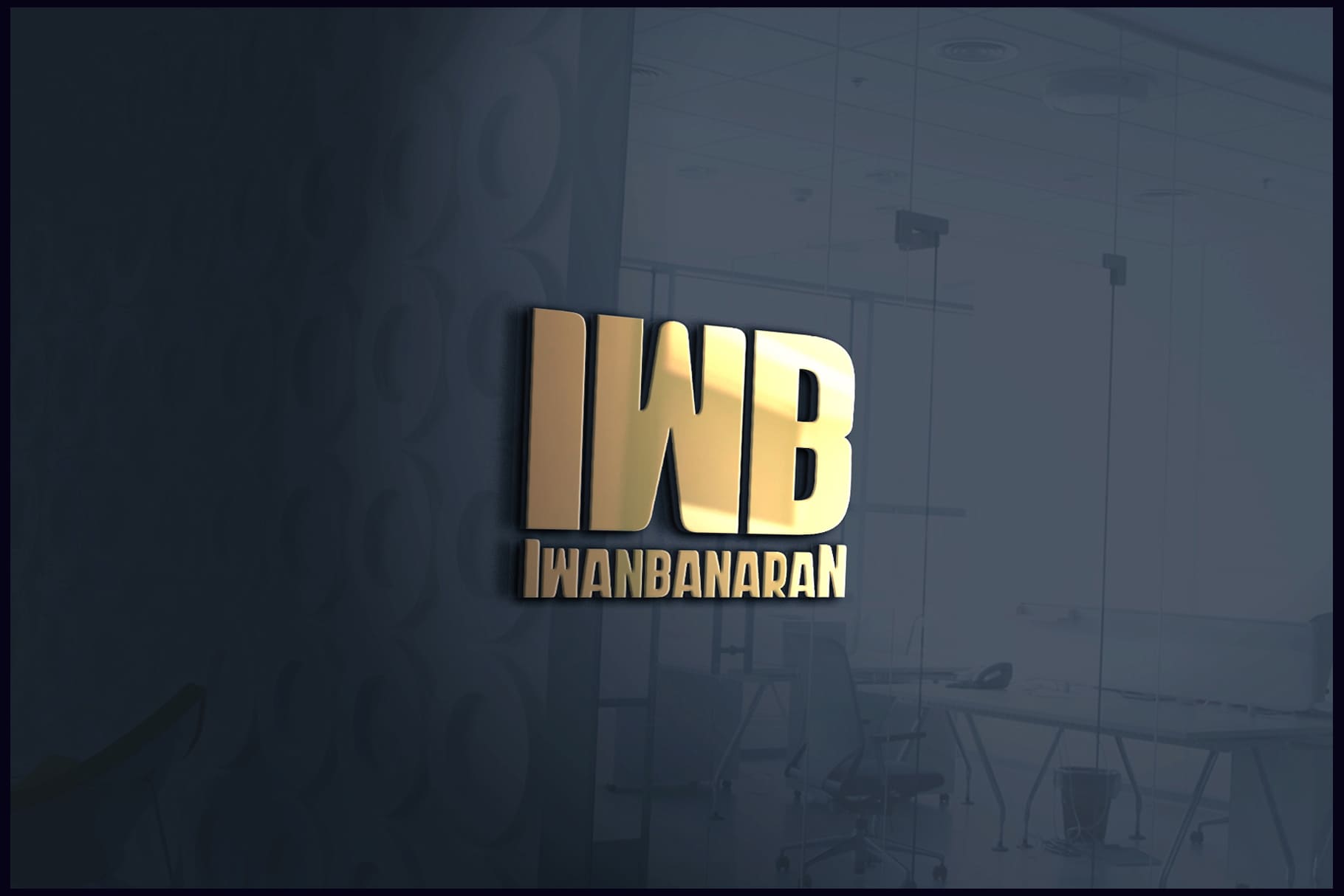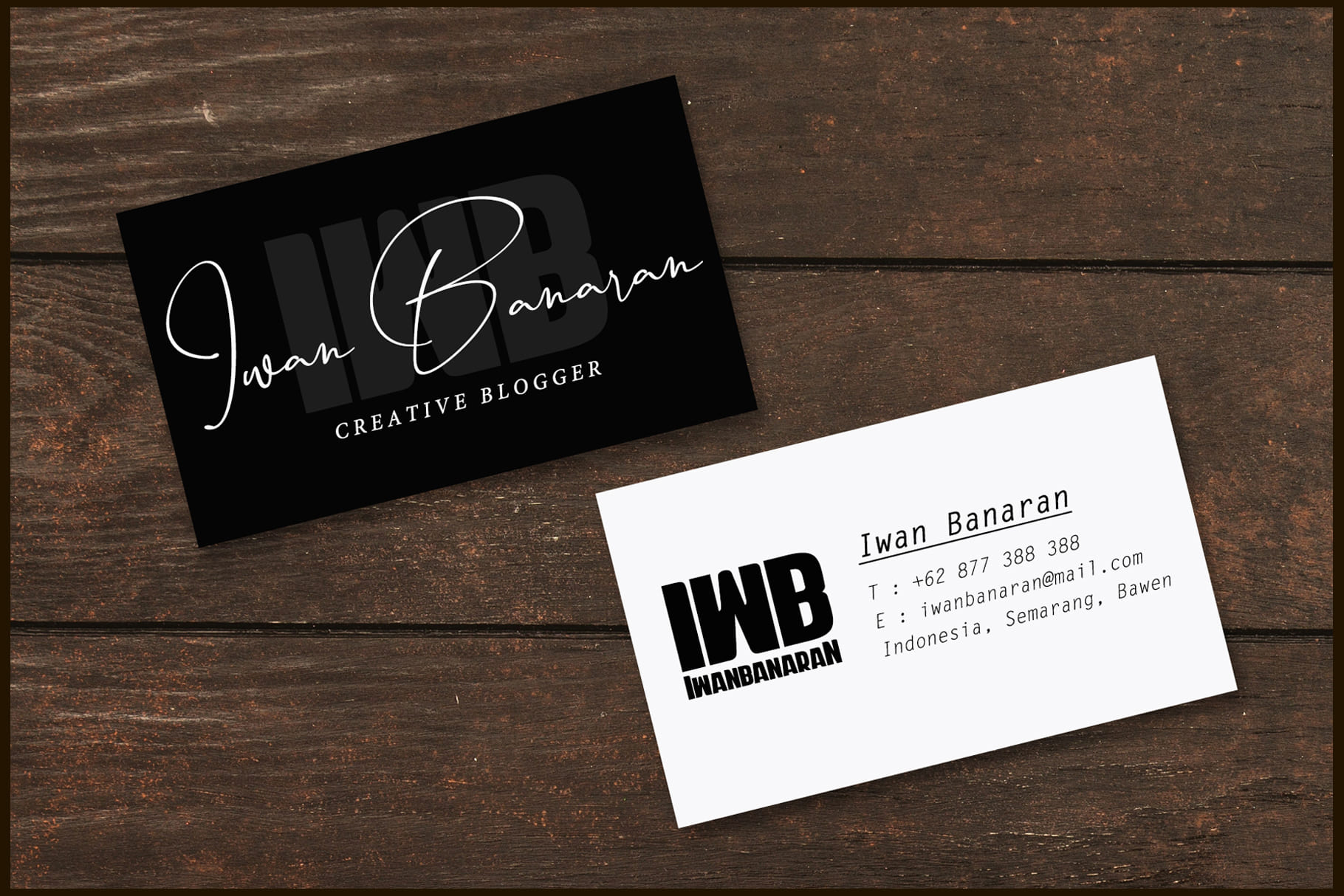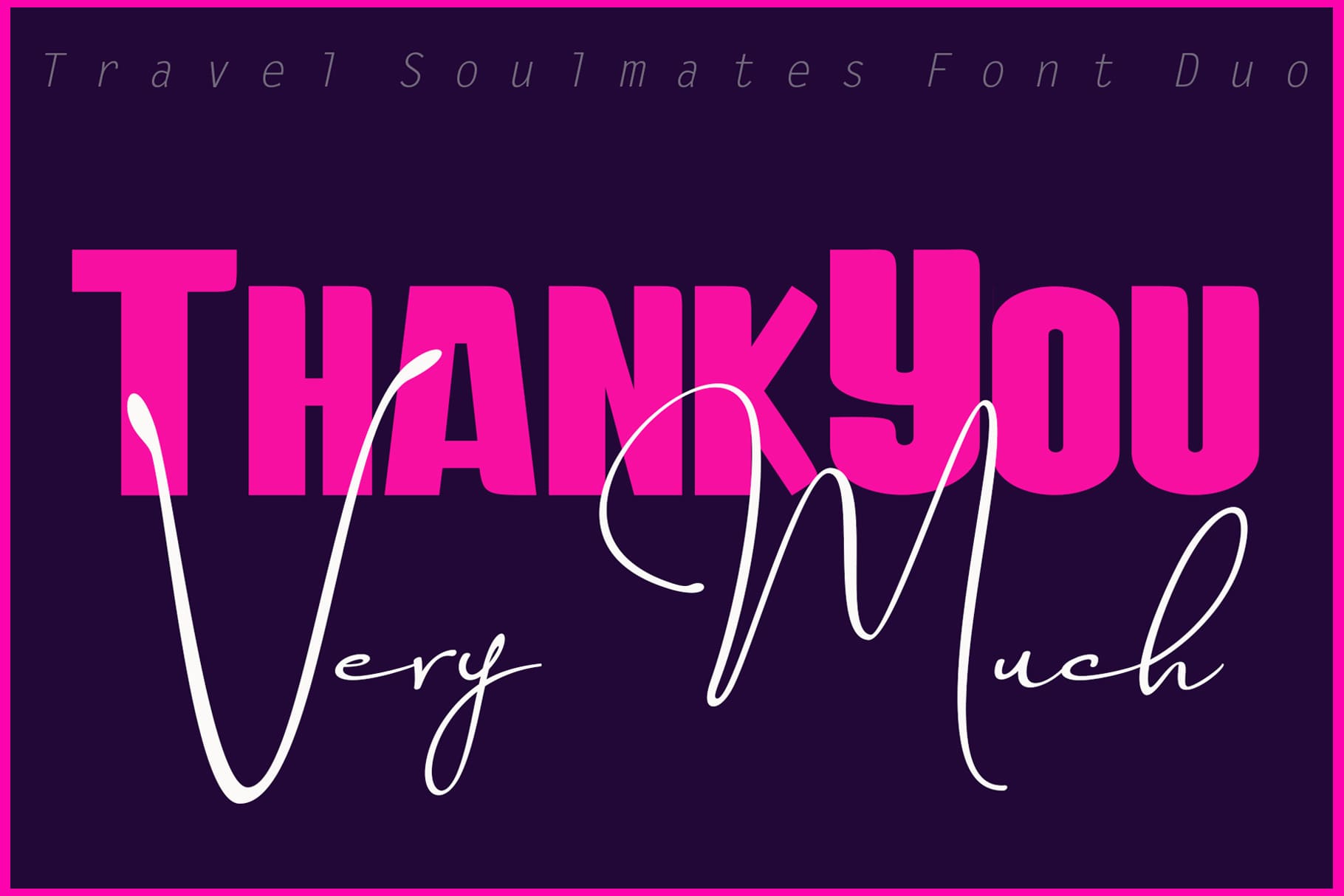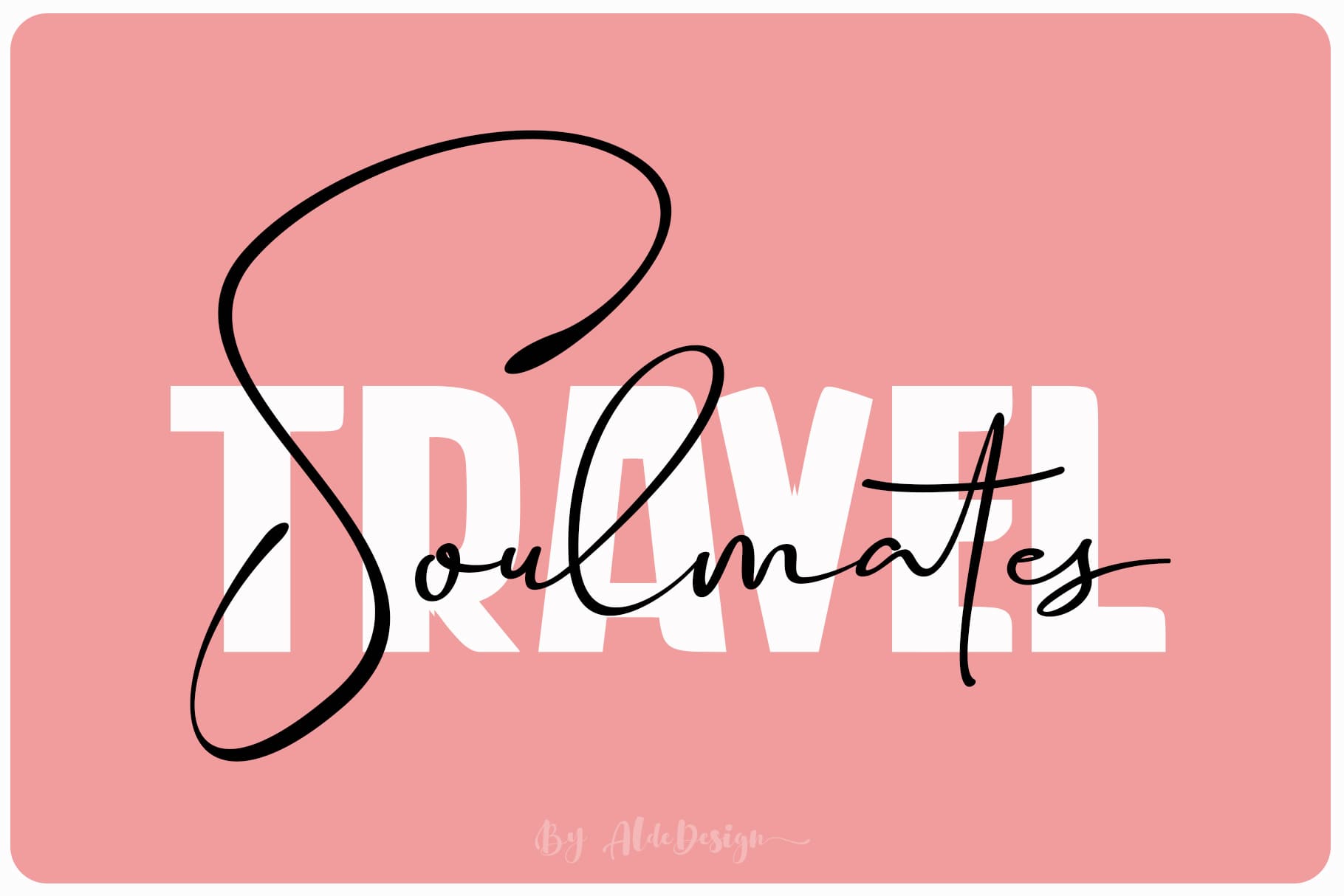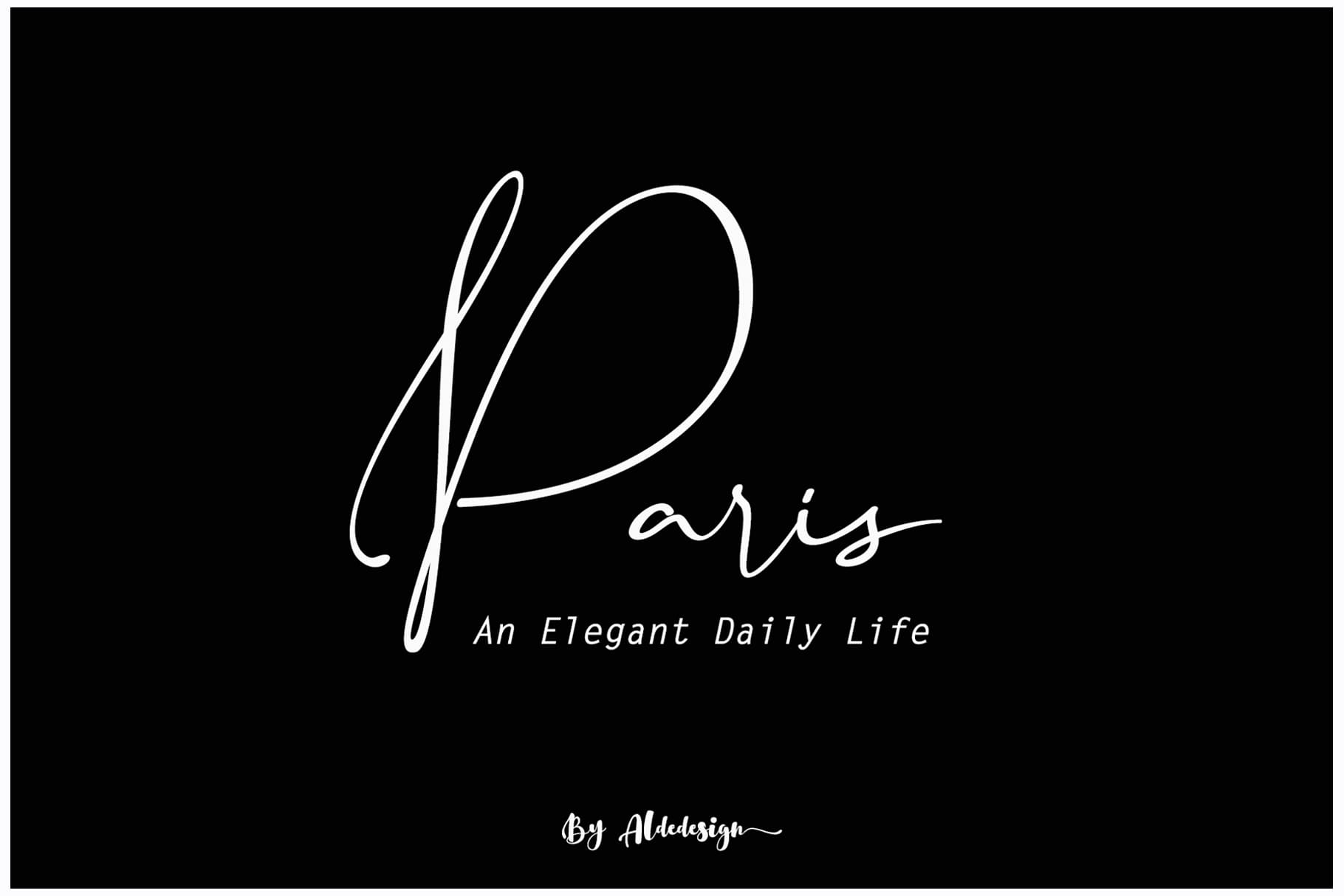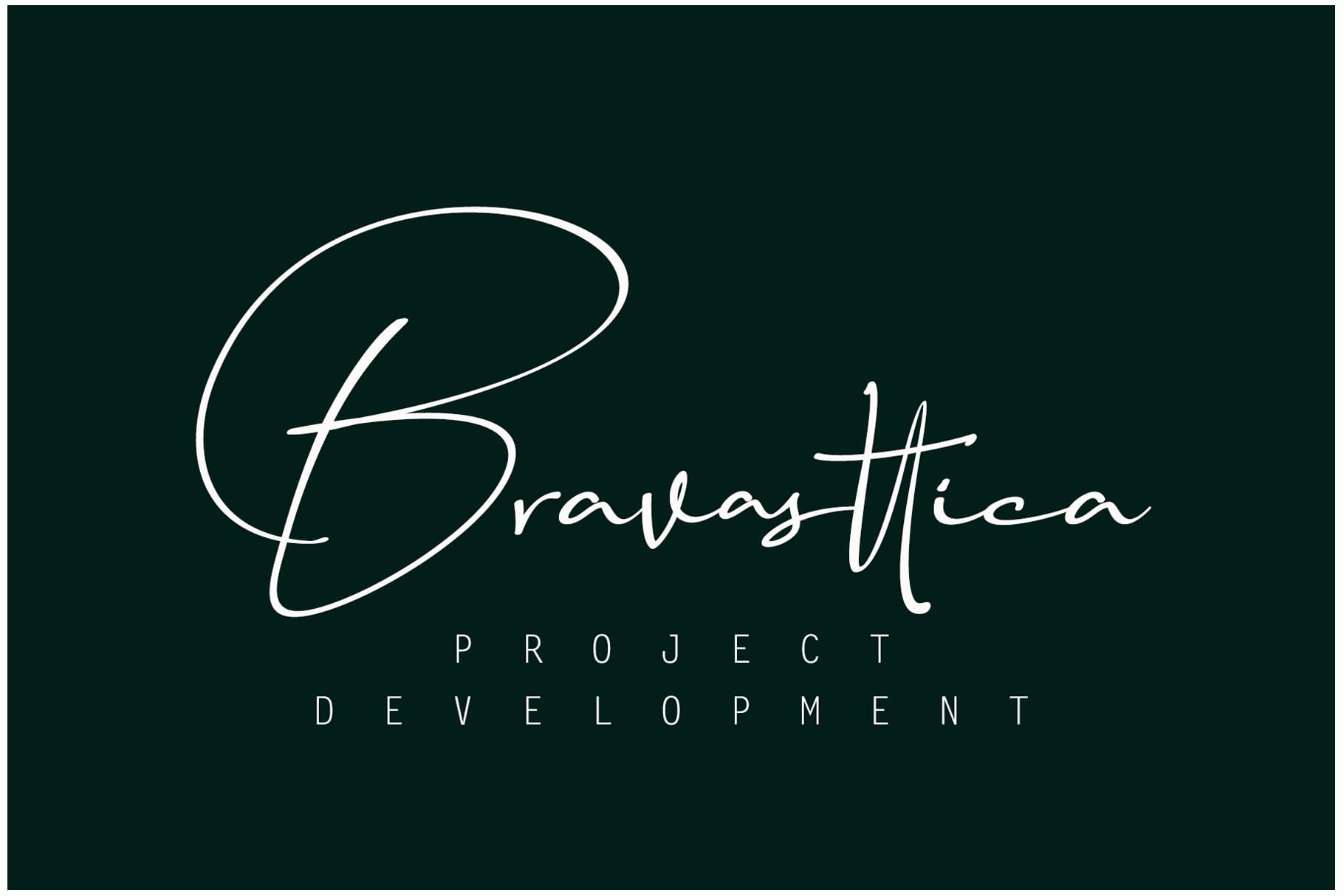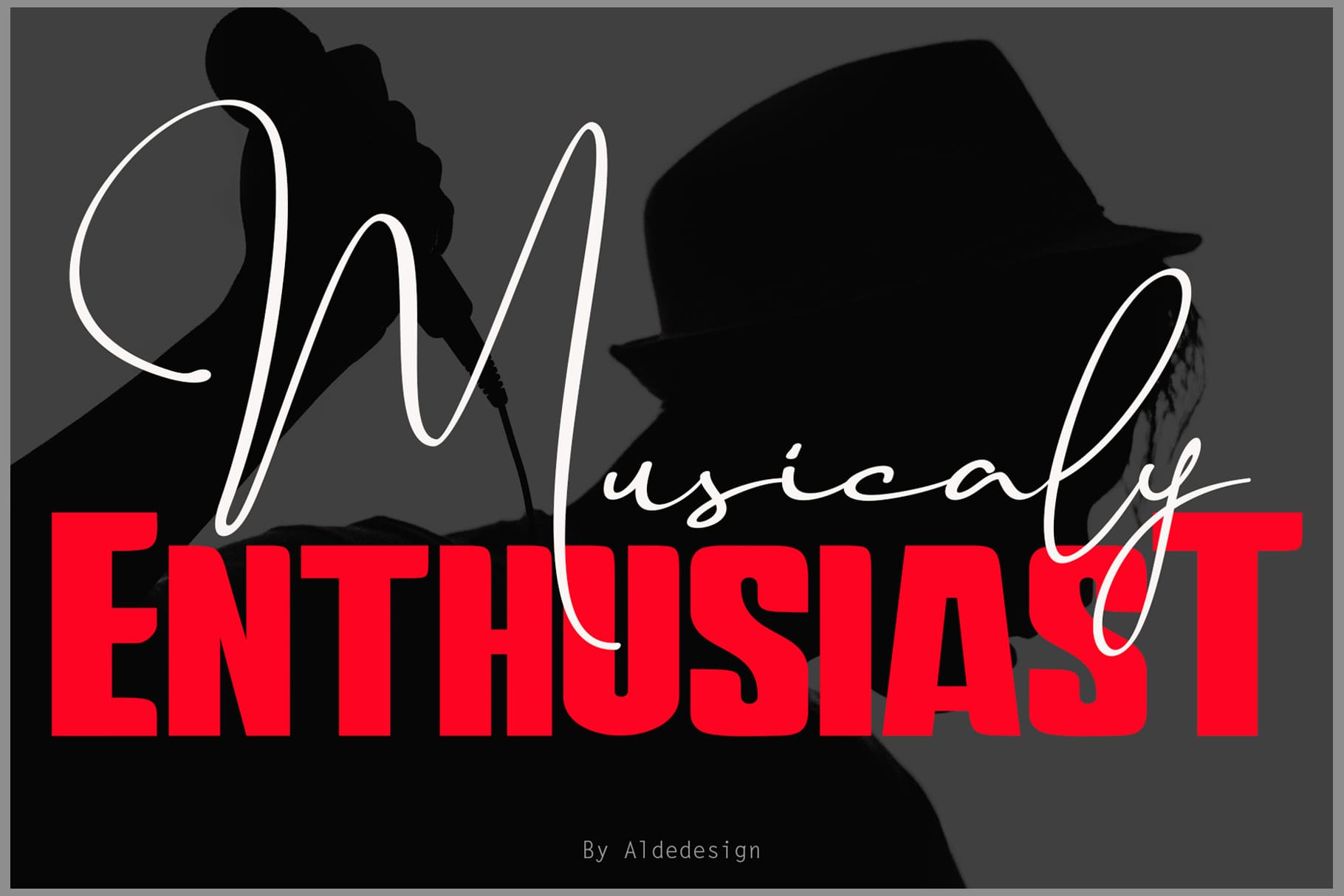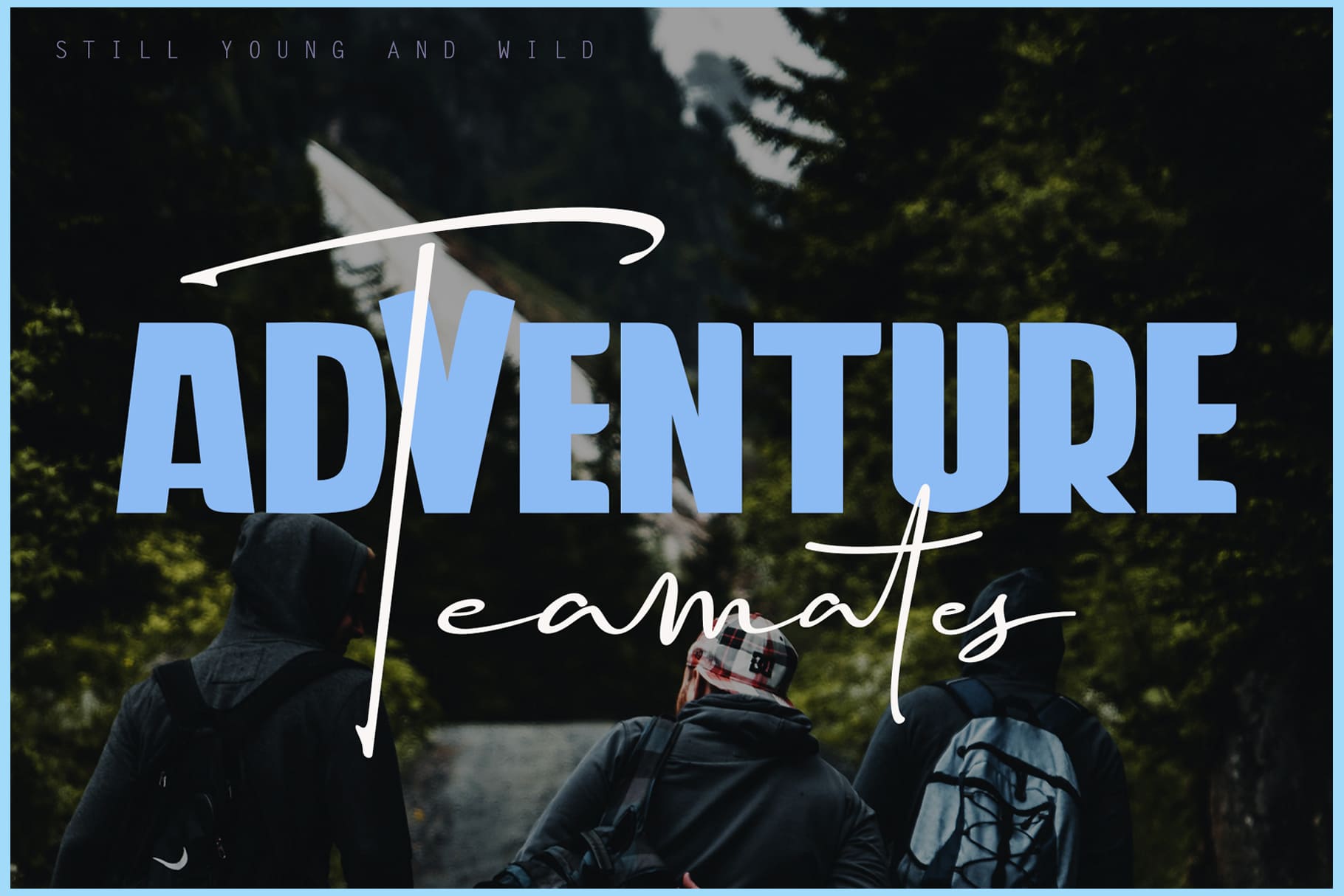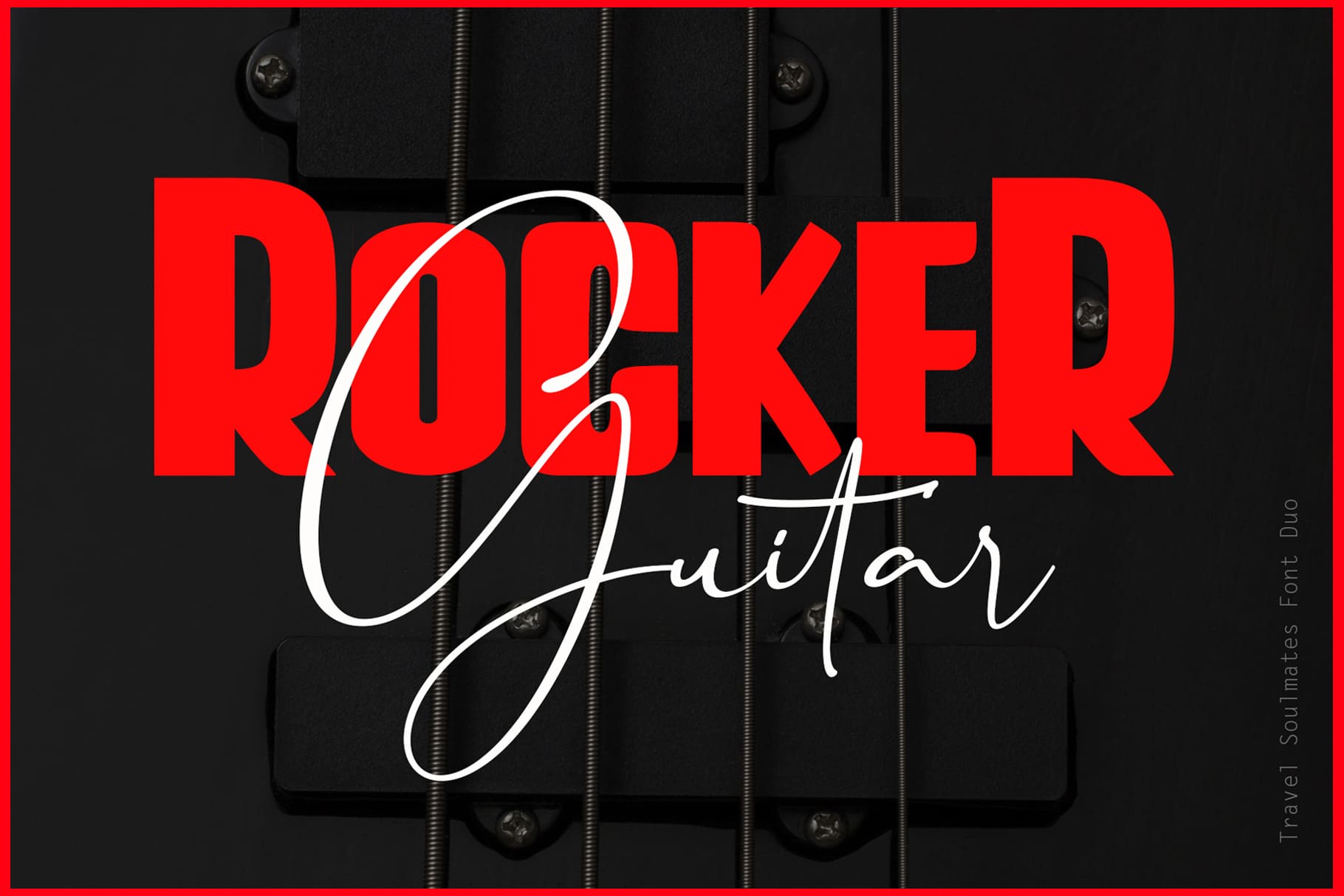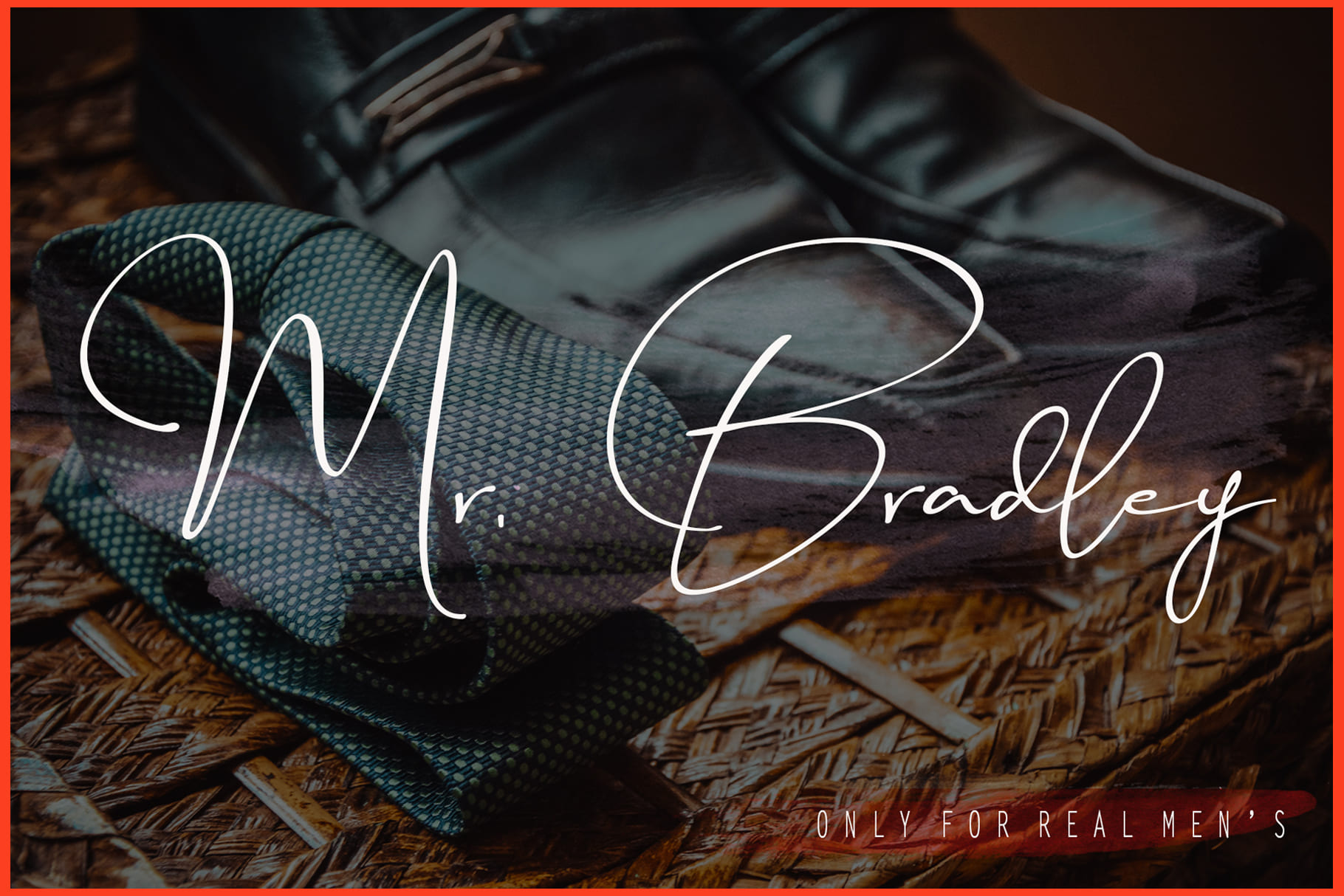
Travel Soulmates Family (2 fonts)
From AldeDesign
Travel Soulmates - Font Duo is a 2-font family which has a simple and classy look, comes with Signature and Weight (bold sans) variations and Opentype features such as ligatures. This font is classy, readable, elegant, stylish, catchy and very easy to use.
Travel Soulmates is a great choice for watermark on photography, signature or signature logo design, album covers, business cards, quotes, and many other design projects.